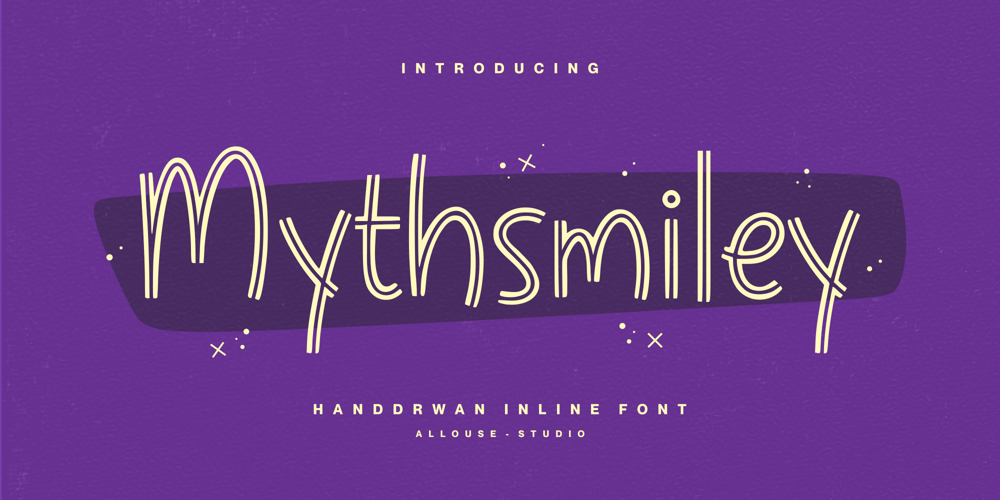
Mythsmiley
Mythsmiley font
Mythsmiley Font Family was designed by Fachrizal Yusuf and published by Allouse Studio. Mythsmiley contains 1 styles and family package options. Proudly Presenting, Mythsmiley A Handdrawn Inline FontMythsmiley is perfect for any titles, logo, product packaging, branding project, megazine, social media, wedding, or just used to express words above the background.Mythsmiley also come with Multi-Lingual Support.Enjoy the font, feel free to comment or feedback, send me PM or email. Thank You!